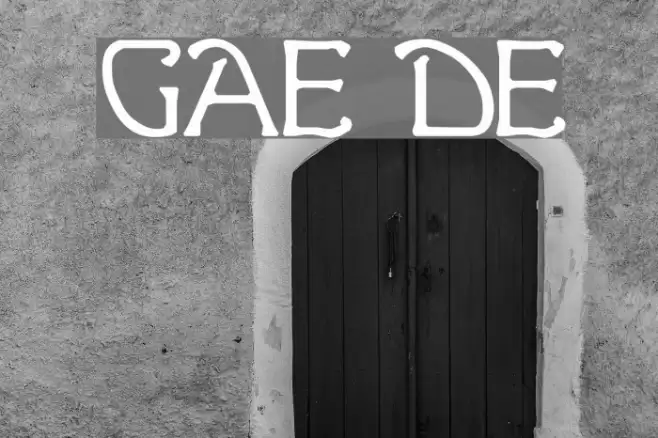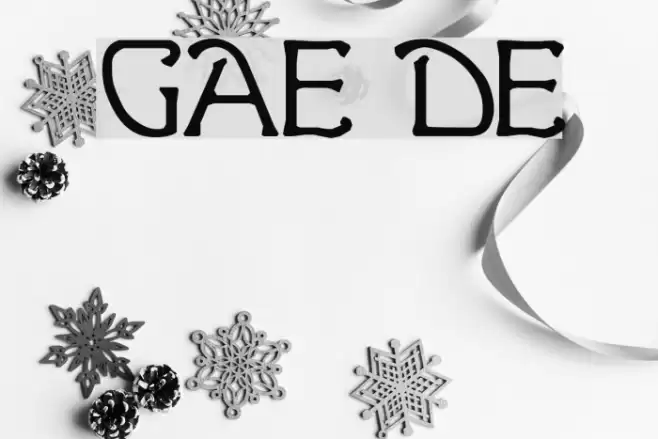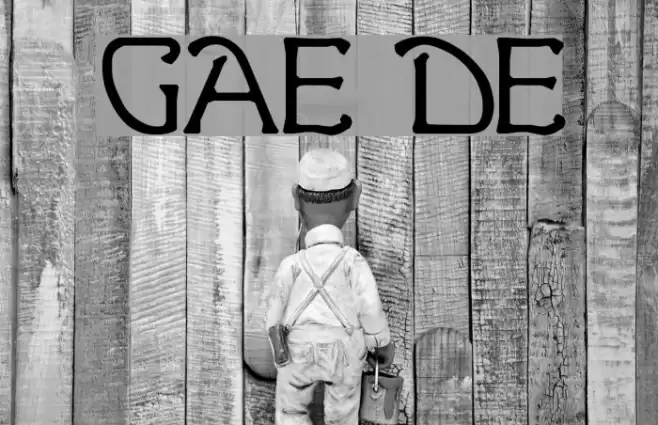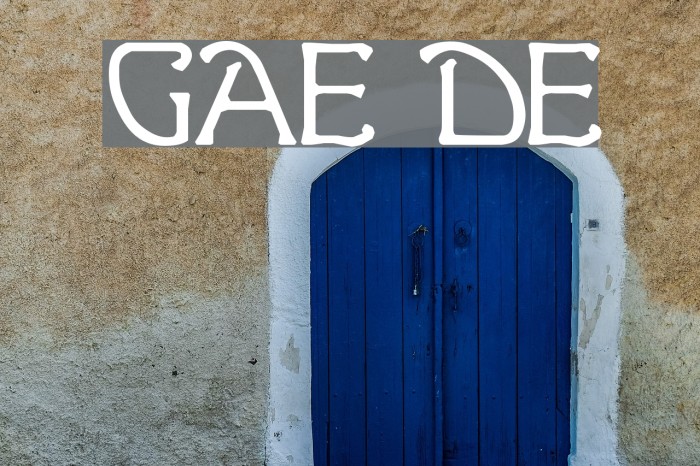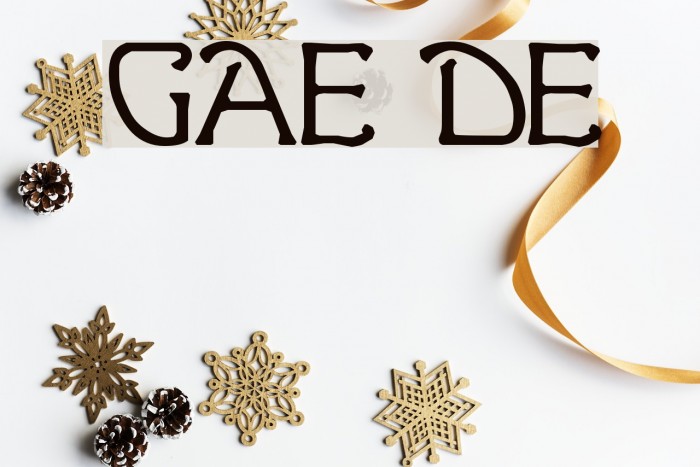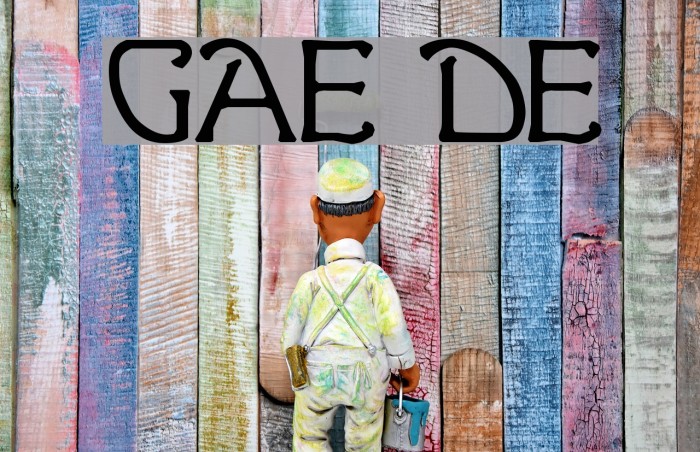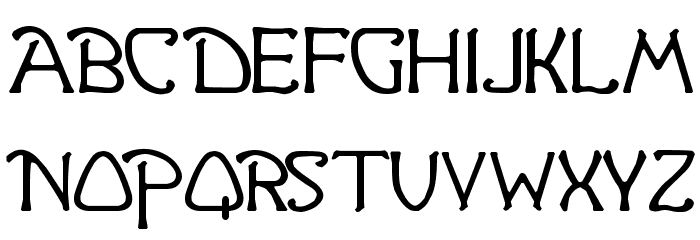
Ganelon Demo Font
Ganelon Demo Description
This font features a unique and artistic design, characterized by its decorative and slightly medieval appearance. The letters have a distinct flair, with curved and angular elements that give it a whimsical yet structured look. The uppercase letters are particularly ornate, with some characters incorporating unusual shapes and strokes that add to the font's distinctive style. The lowercase letters maintain a similar aesthetic, ensuring consistency across the typeface. This font is well-suited for projects that require a touch of fantasy or historical elegance, making it ideal for themed designs or creative displays.
A decorative font with a whimsical, medieval-inspired design from Capitals fonts.
- Proposed Projects: Ideal for fantasy-themed designs, book covers, posters, and creative displays.